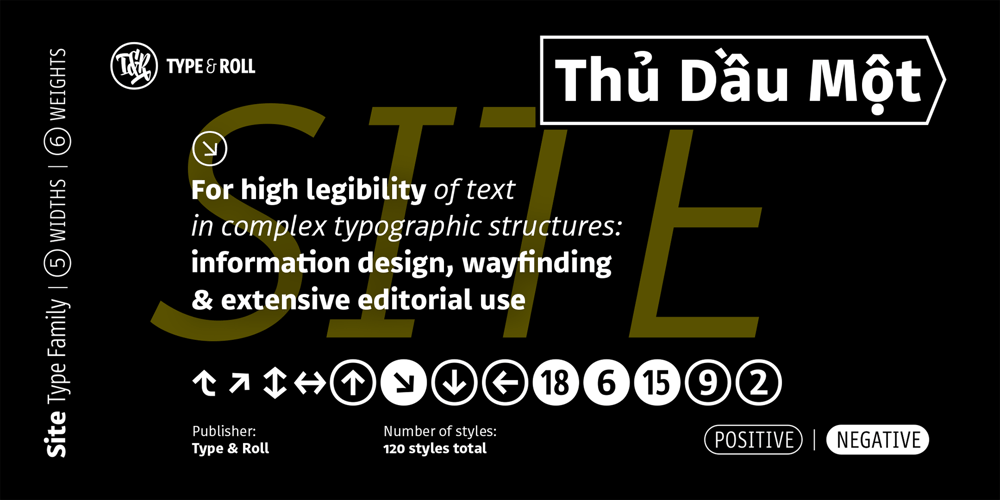
Site Negative XCondensed Font Family was designed by Robert Jarzec and published by Type & Roll. Site Negative XCondensed contains 12 styles and family package options. The Site type family is designed to facilitate legibility of text in complex typographic structures. It is especially suited for information graphics and signage, as well as for extensive editorial use. Site comes in 5 widths and 6 weights, with duplexed italics and styles suited for positive and negative polarization – 120 styles in total. The type parameters are shaped to support character recognition at a distance, at small visual angles and in different reading conditions. At the same time, narrow proportions and large x-height enables compact typesetting.